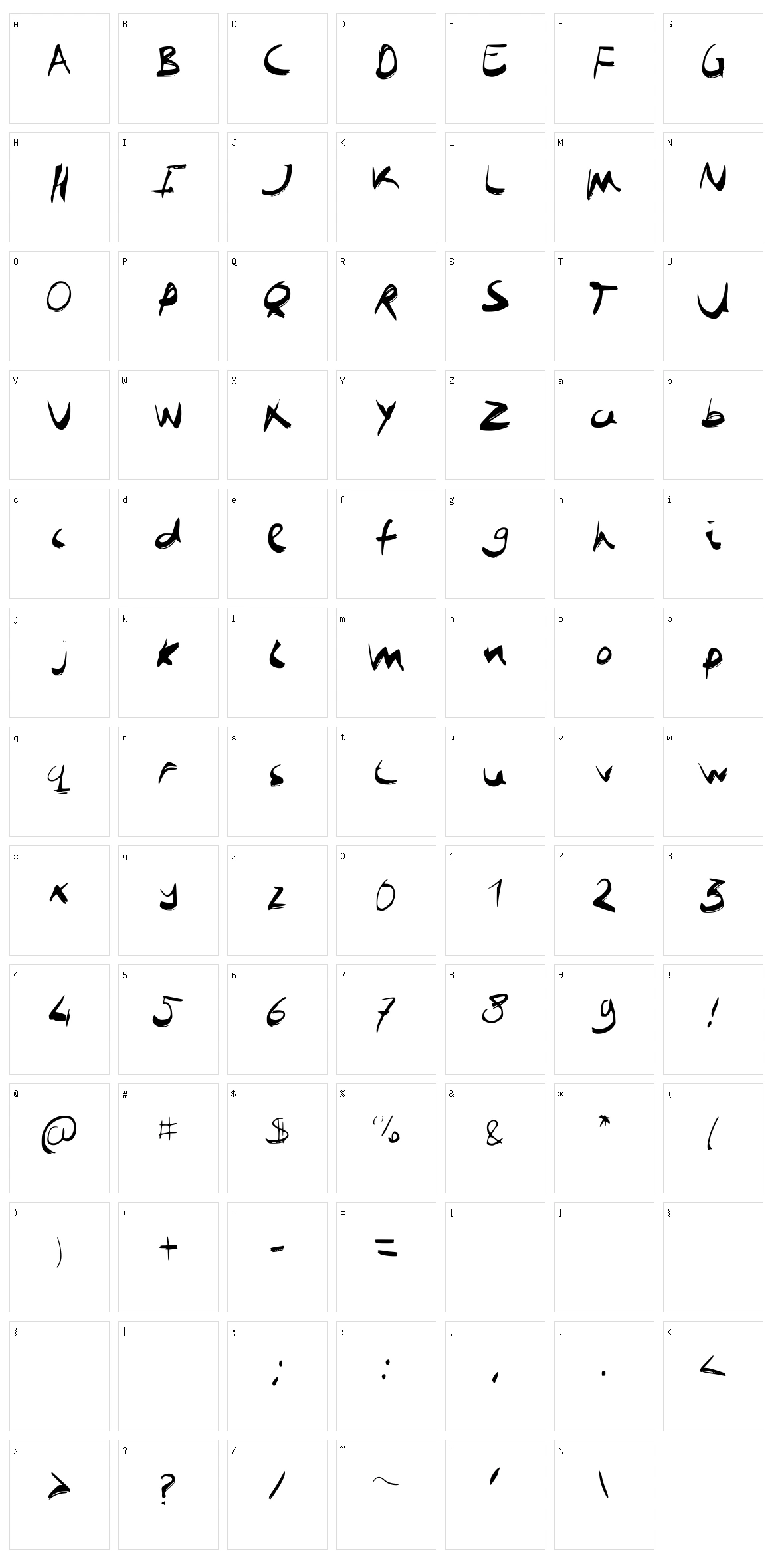
The free font Job Boof Kwast is carefully designed by John Boof, showcasing a thoughtful balance of creativity and usability and falls under the Script font style. When you download the ZIP file, it contains only 15.11 KB of font files, making it lightweight and quick to download. Please review the license details below to understand permitted usage and distribution rights. If license information is not available, we recommend using this font for personal projects only or contacting the author directly for commercial usage permissions.